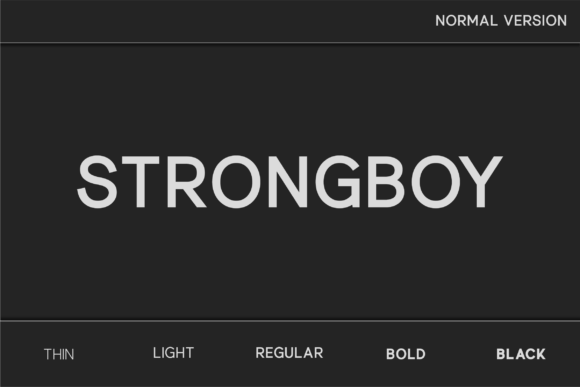
Introducing Strongboy Font: The Epitome of Sophistication and Simplicity
In the realm of typography, fonts play a pivotal role in transforming a design from ordinary to extraordinary. Among the myriad of fonts available, Strongboy font stands out as a beacon of elegance and refinement. This exquisite sans serif font has been crafted with utmost precision to enhance any project, whether it be a magazine, logo, or film poster. In this article, we will delve into the world of Strongboy font, exploring its features, benefits, and applications, as well as the perfect balance of sophistication and simplicity it brings to designs.
Key Features of Strongboy Font
- Sans Serif Elegance: Strongboy font boasts a sleek and modern sans serif design, making it perfect for projects that require a touch of sophistication.
- Precision Crafted: Each letterform has been meticulously crafted to ensure a high level of legibility and aesthetic appeal.
- Timeless Charm: The font’s classic design ensures that it remains relevant and stylish, even as design trends evolve.
- Versatile: Strongboy font can be used across various mediums, from print to digital, and is suitable for a wide range of projects.
The Benefits of Using Strongboy Font
Strongboy font offers numerous benefits to designers, including:
- Enhanced Readability: The font’s clear and concise design ensures that text is easy to read, even at small sizes.
- Professional Look and Feel: Strongboy font lends a professional and polished look to any design, making it perfect for high-end projects.
- Flexibility: The font’s versatility allows it to be used in a variety of contexts, from headlines to body text.
- Unique Identity: Strongboy font helps create a distinctive visual identity for brands, setting them apart from competitors.
Exploring the Applications of Strongboy Font
Strongboy font is an incredibly versatile typeface that can be used in a wide range of applications, including:
- Magazine and Newspaper Design: The font’s clear and concise design makes it perfect for editorial projects.
- Logo Design: Strongboy font can be used to create memorable and impactful logos that make a lasting impression.
- Film and Theater Posters: The font’s bold and eye-catching design makes it ideal for promotional materials.
- Digital Media: Strongboy font can be used in digital applications, such as websites, social media, and advertising.
The Perfect Balance of Sophistication and Simplicity
Strongboy font embodies the perfect balance of sophistication and simplicity, making it an ideal choice for designers. The font’s sleek and modern design ensures that it looks polished and refined, while its simplicity ensures that it remains approachable and accessible.
This balance is achieved through the font’s:
- Clean Lines: The font’s clean lines and minimal ornamentation create a sense of simplicity and elegance.
- Classic Proportions: Strongboy font’s classic proportions ensure that it remains timeless and stylish.
- Legibility: The font’s high level of legibility ensures that text is easy to read, making it perfect for a wide range of applications.
Tips for Using Strongboy Font Effectively
To get the most out of Strongboy font, consider the following tips:
- Use it as a Headline Font: Strongboy font is perfect for headlines and titles, where its bold and eye-catching design can make a lasting impression.
- Pair it with Other Fonts: Strongboy font can be paired with other fonts to create a unique and visually appealing typography system.
- Experiment with Font Sizes: The font’s versatility allows it to be used at a range of font sizes, from small body text to large headlines.
- Pay Attention to Kerning: As with any font, pay attention to kerning to ensure that text looks polished and refined.
Strongboy font is an exquisite sans serif font that offers a perfect balance of sophistication and simplicity. Its precision-crafted design ensures that it looks polished and refined, making it perfect for a wide range of applications. Whether you’re designing a magazine, logo, or film poster, Strongboy font is an excellent choice. With its versatility, legibility, and timeless charm, Strongboy font is sure to elevate your designs to new heights.